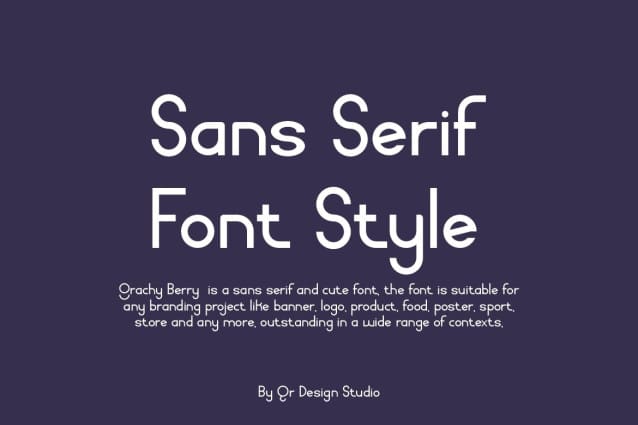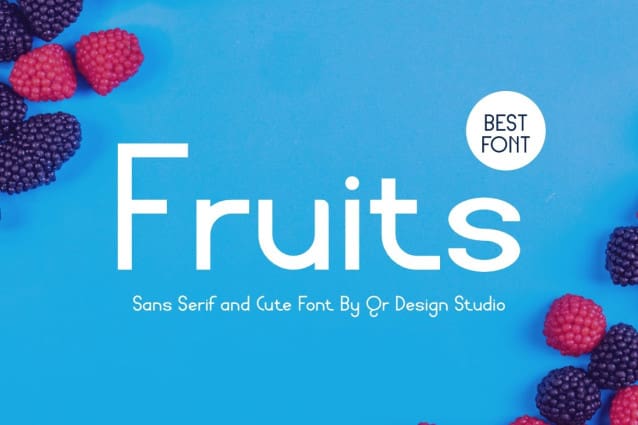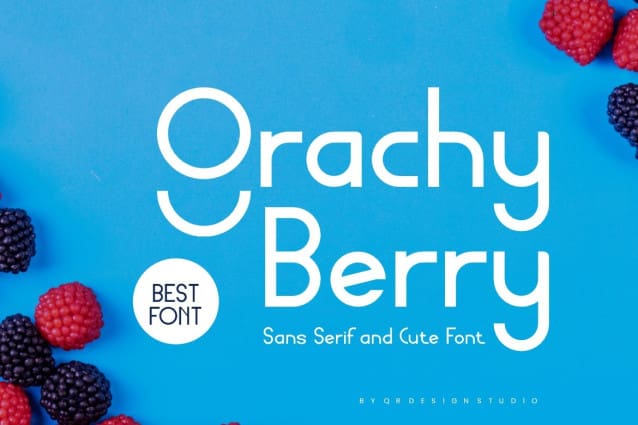
Grachy Berry Font
Grachy Berry Font is an authentic, sans Serif display font. The font is suitable for all branding projects such as posters, logos, sports and many more. Standout in a wide range of contexts.